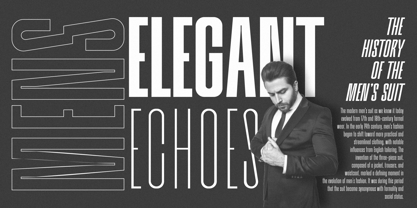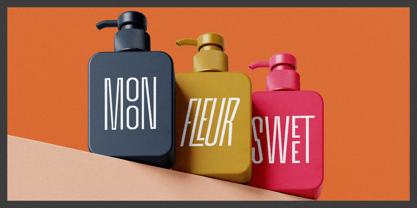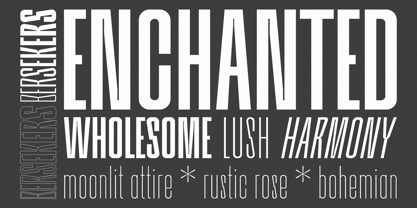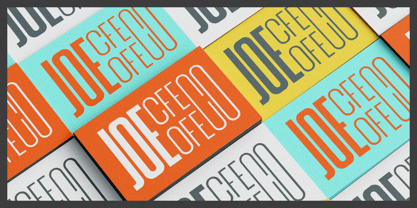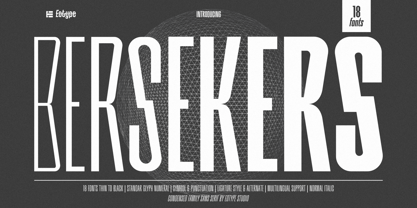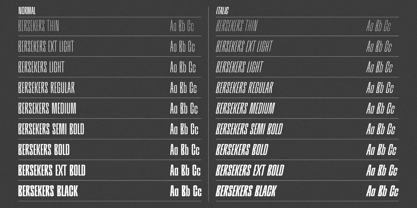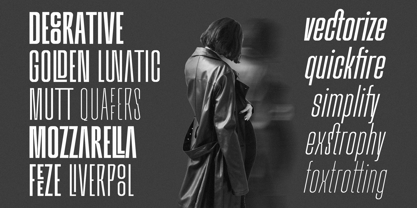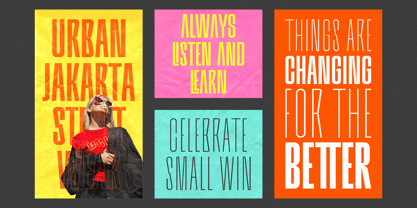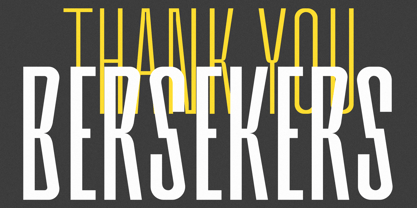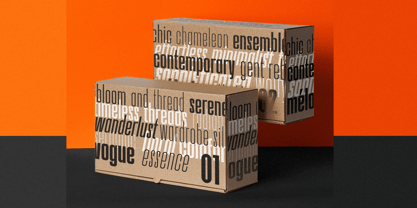
Bersekers
by Eotype
The Bersekers Font Family was designed by Fajar Ramadan and published by Eotype. Bersekers contains 18 styles and family package options.
Bersekers is a modern condensed sans serif font family consisting of 9 weights over 18 normal and italic fonts. You can use it to convey the perfect design balance between modern and strong.
Bersekers is the epitome of elegance and functionality Whether you're creating headlines, logos, packaging, or web designs, this font's compact structure ensures a visually striking impact that commands attention